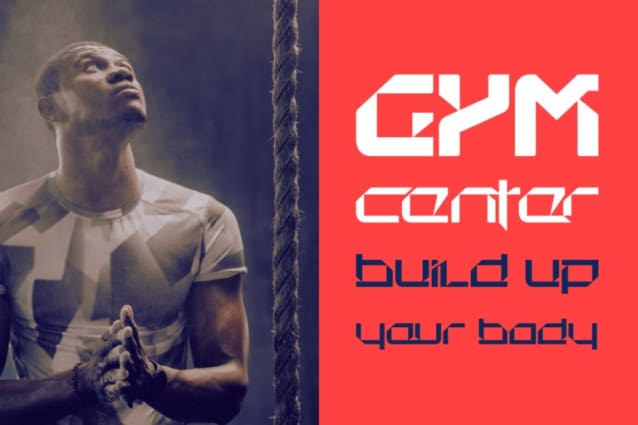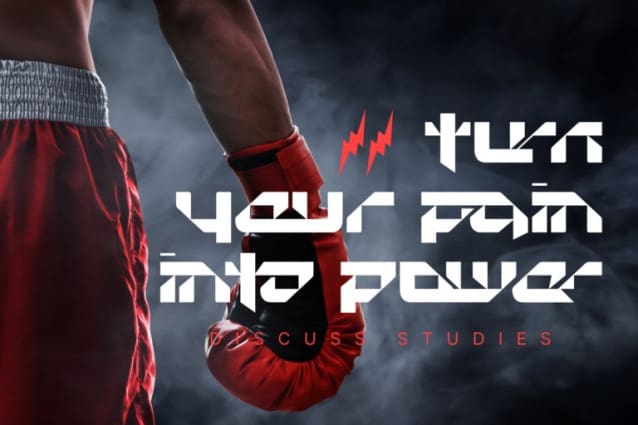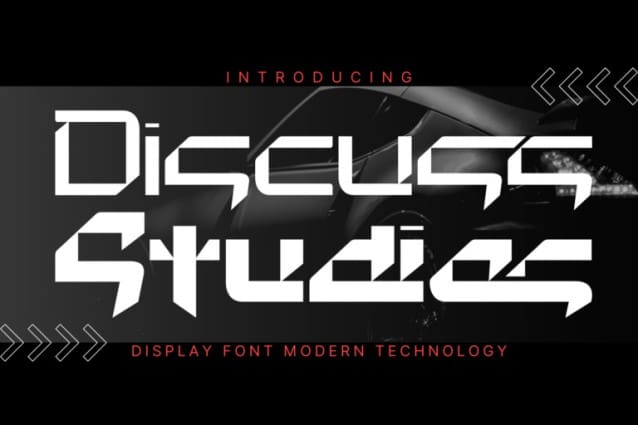
Discuss Studies Font
Discuss Studies Font – Futuristic Sans Serif Font, a modern sans serif font with geometric details. It’s a premium Sans Serif Font, perfect for any project that requires a distinctive, and premium feel. This font is the perfect choice for all creative endeavors, such as invitation card designs, company logos, magazines, business cards, book titles, brand names and various other designs.
Discuss Studies was built with OpenType features and includes 100 ligatures, alternate, numbers, punctuation, and it also supports other languages.